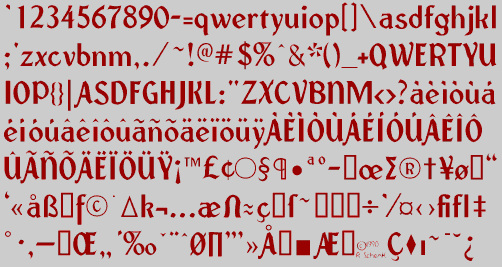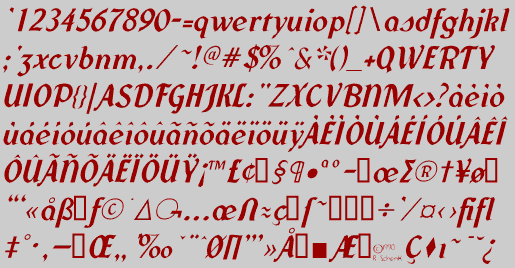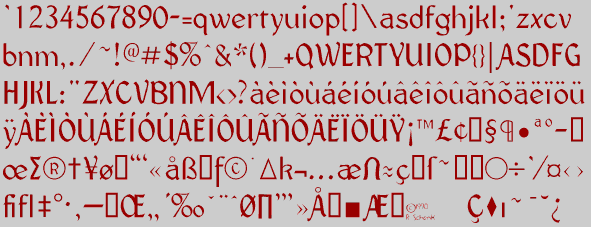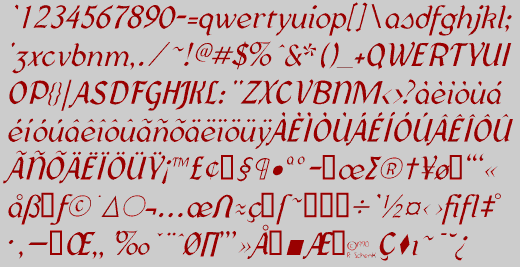
Federhozen is decorative and informal, but has good readability even at small point sizes. The italics comes close to script. It works well in places where one wants to create the illusion of very neat hand lettering.